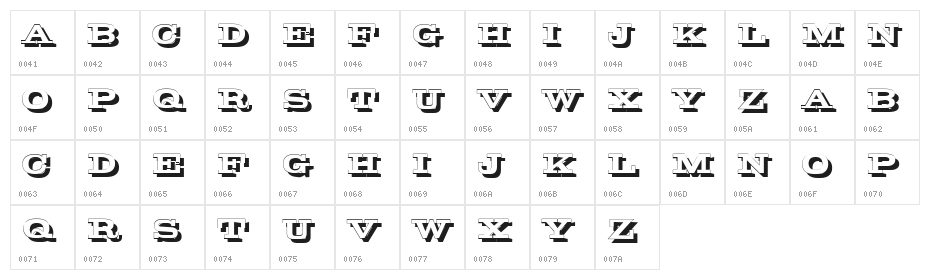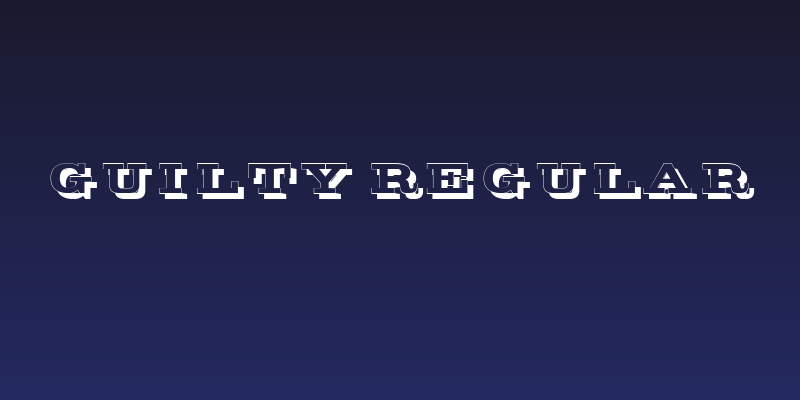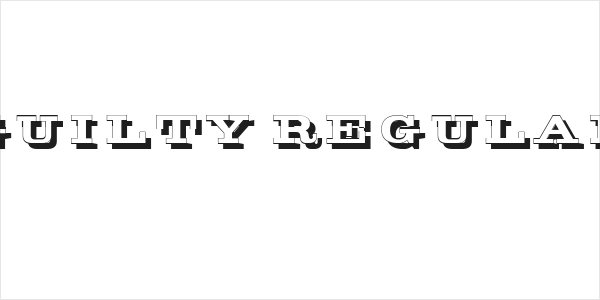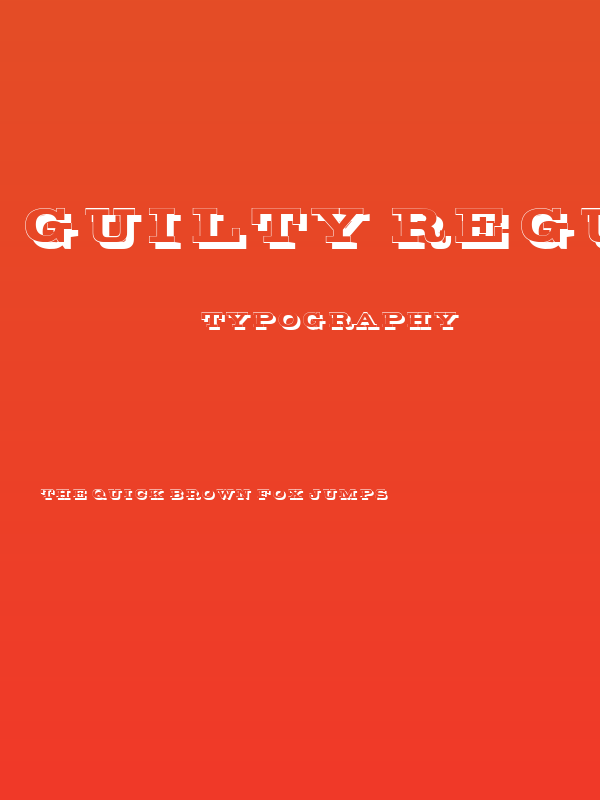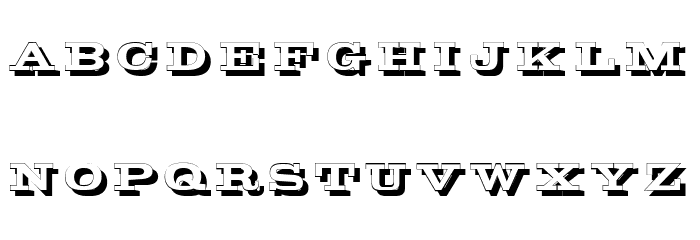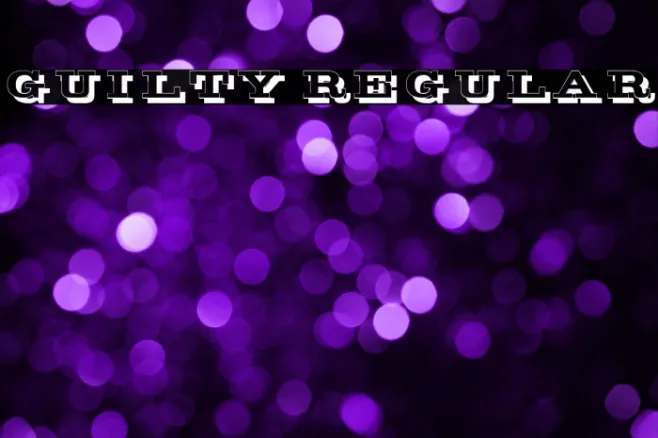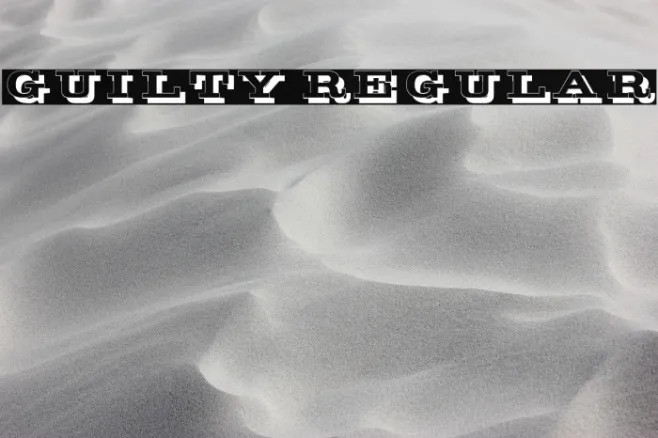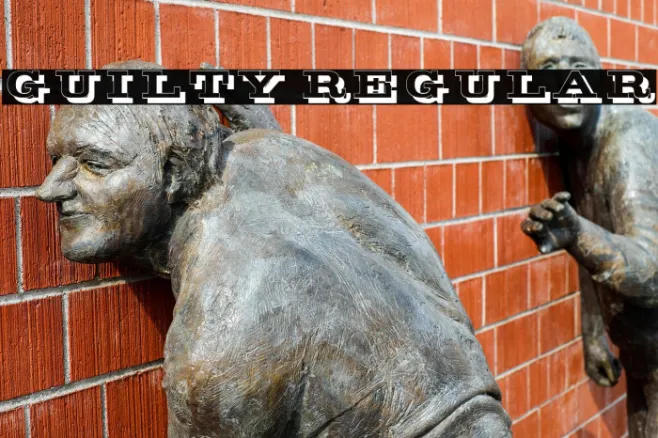
Guilty Regular Font
Guilty Regular Description
This font features a bold and impactful design with a three-dimensional shadow effect that gives it a striking appearance. The uppercase letters are crafted with strong, straight lines and sharp angles, creating a sense of solidity and strength. The shadow effect adds depth and a vintage feel, reminiscent of classic signage or poster typography. The font maintains a consistent weight throughout, ensuring readability while adding a decorative touch. Its unique style makes it suitable for projects that require a bold statement or a retro aesthetic.